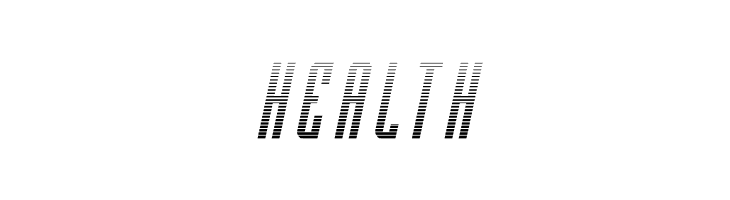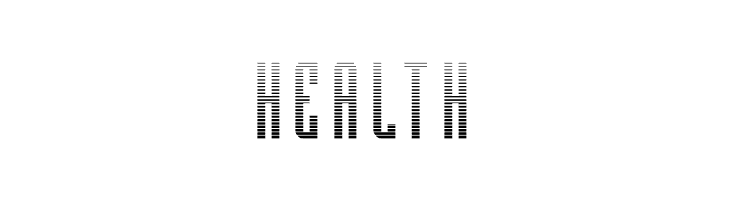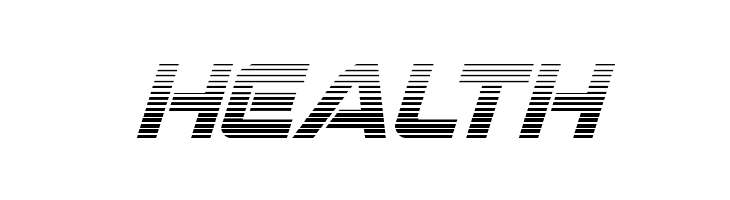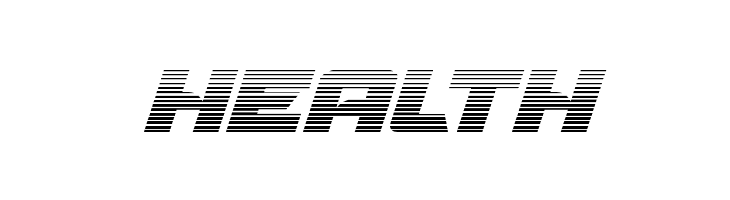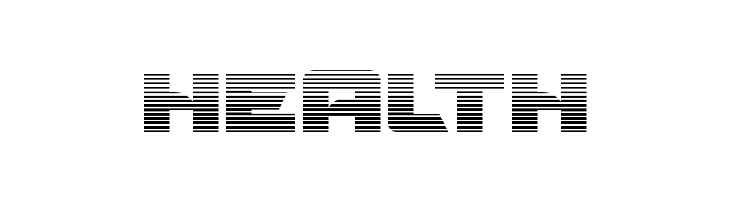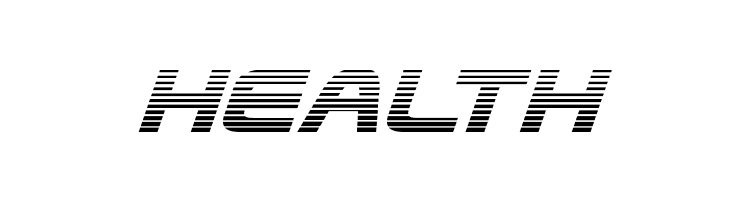
A bold, italicized font with a gradient effect and a modern, industrial style.
A modern, italicized font with a gradient effect, ideal for dynamic and futuristic designs.
A bold, decorative font with a gradient effect created by horizontal lines.
A modern, italicized font with a gradient effect and striped pattern.
A bold, futuristic font with a gradient effect and geometric shapes.
A bold, gradient, italic font with a modern, dynamic style.
A bold, futuristic font with a striped, gradient effect.
A bold, italicized font with a gradient effect, ideal for dynamic and futuristic designs.
A bold, futuristic font with a gradient effect created by horizontal lines.
A modern, italic font with a gradient line effect, exuding speed and dynamism.